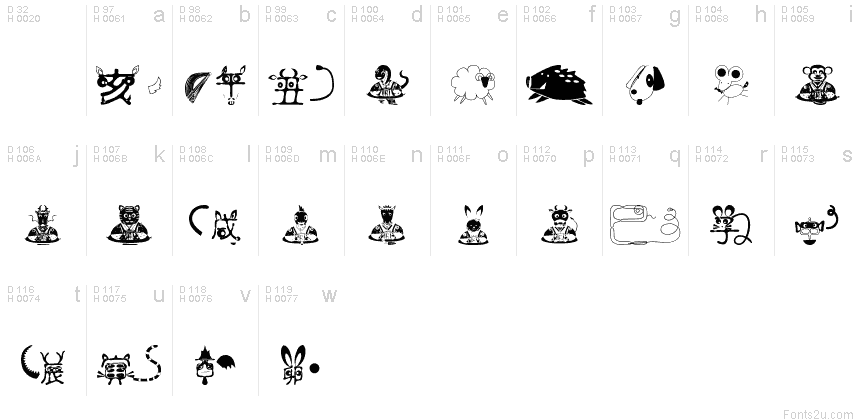
SimplyFriends by Lime is a free cartoon animal dingbat font built from lively, inked character portraits. Each symbol uses broad outlines, simplified faces, and patterned clothing to turn familiar creatures into compact illustrations. The drawing feels cheerfully handmade.
These dressed-up animals can become part of the artwork in children's publishing and activity sheets, rather than serving as ordinary lettering. Their comic expressions also suit party invitations and playful merchandise built around recurring mascots. In editorial design, the figures can mark sections or introduce lighthearted animal features.